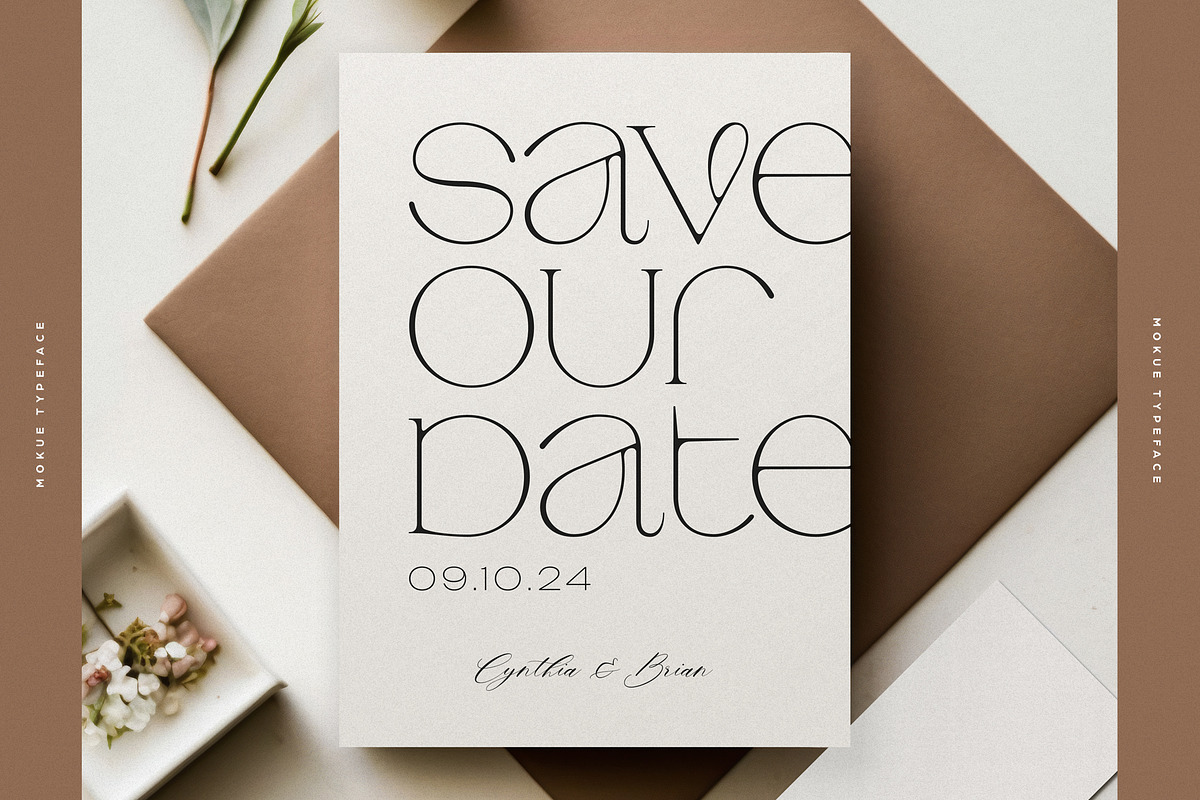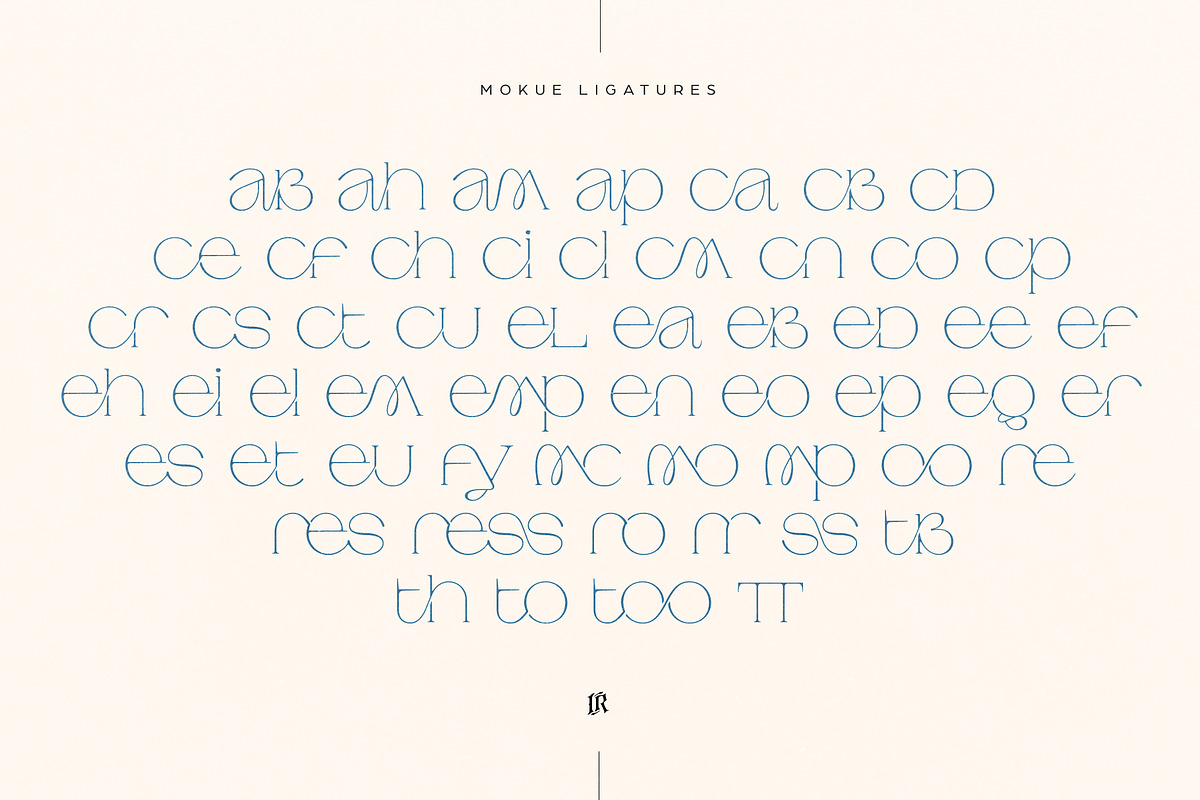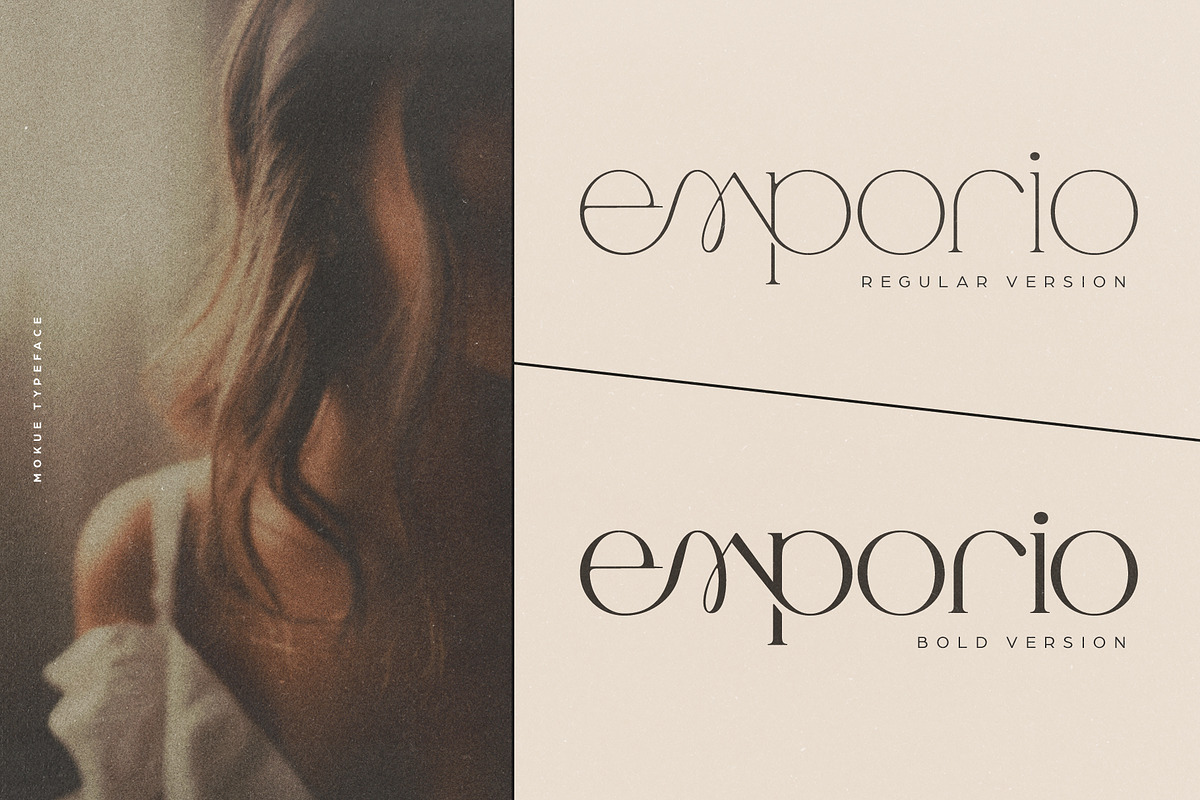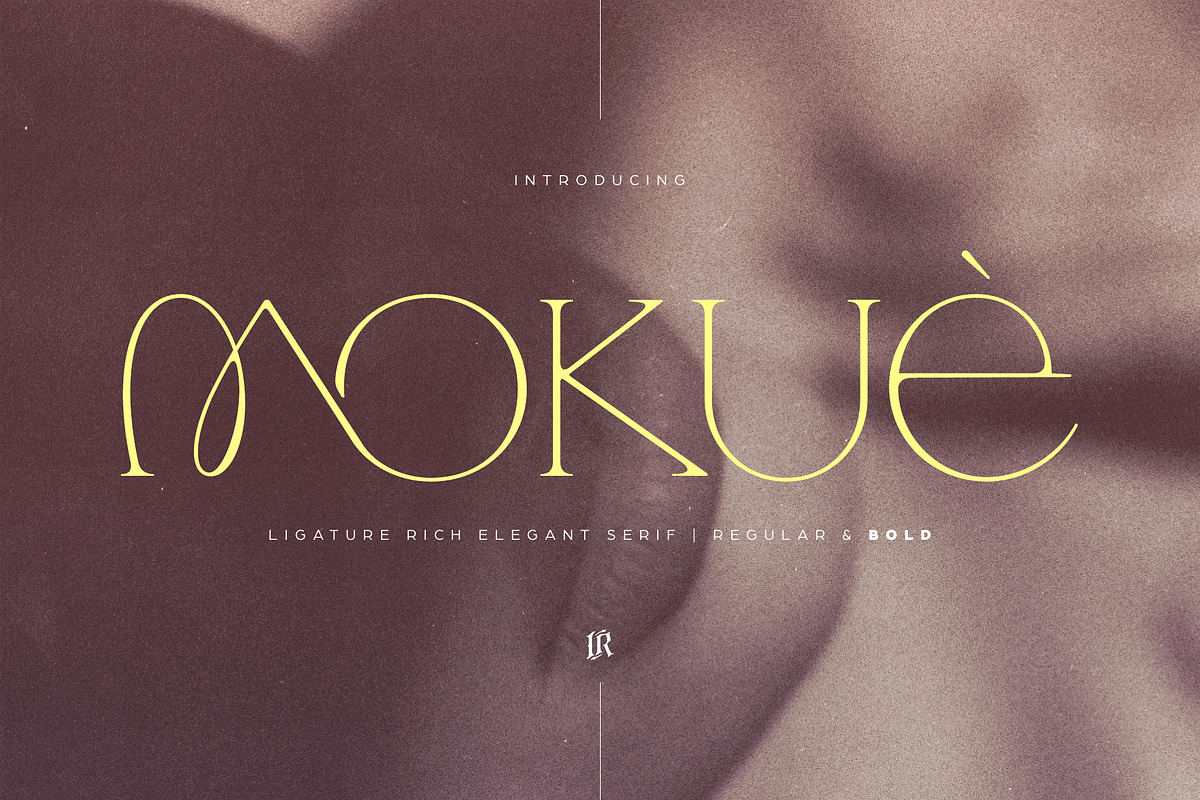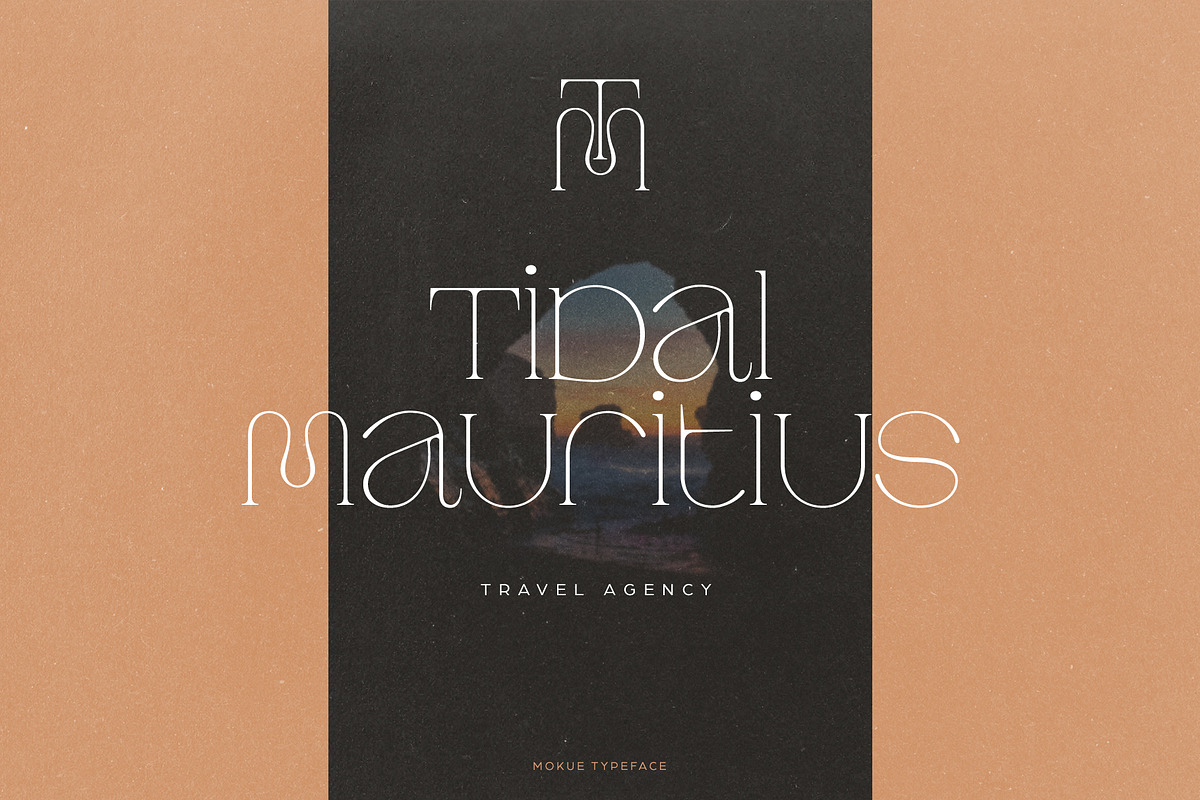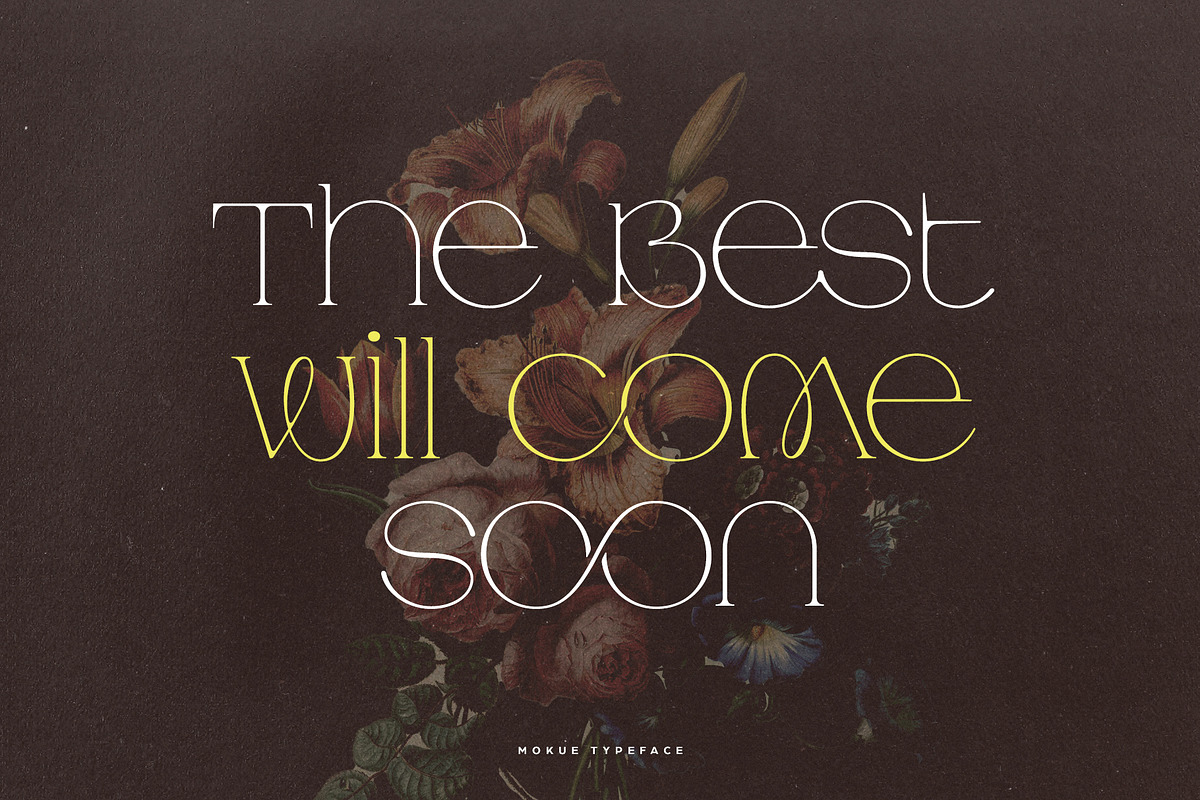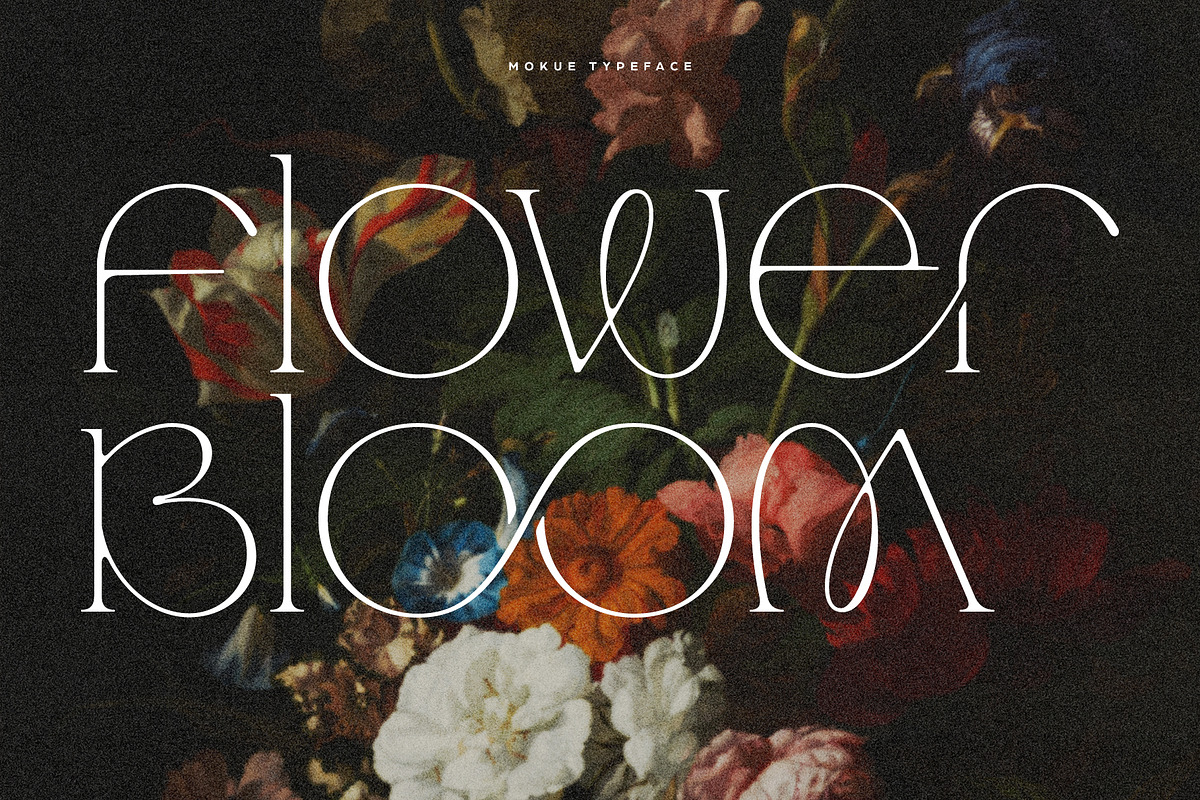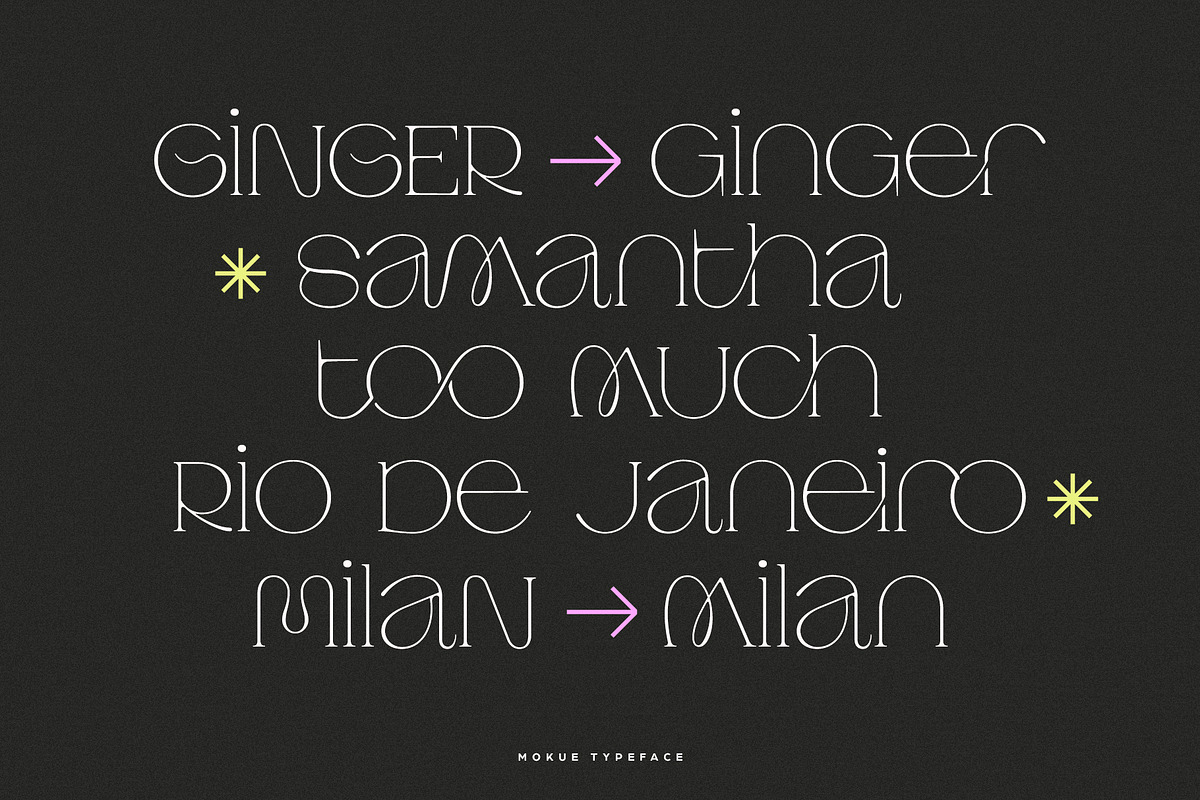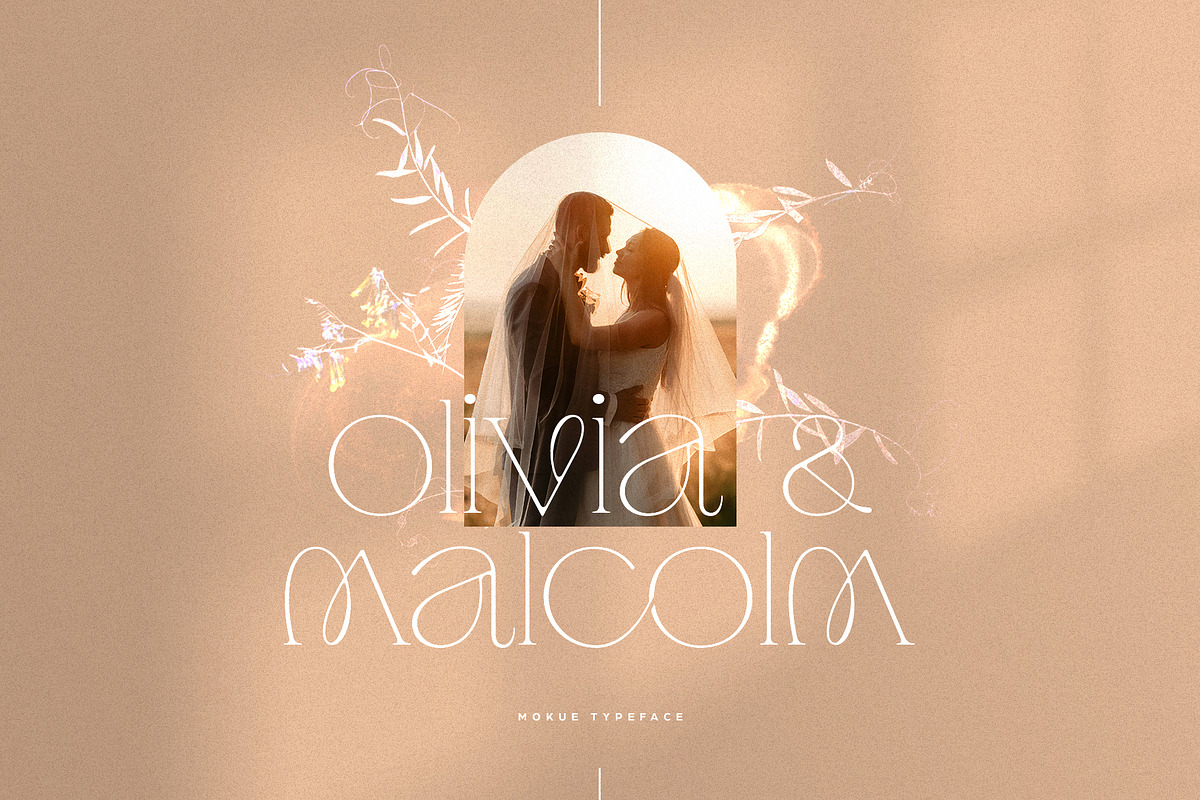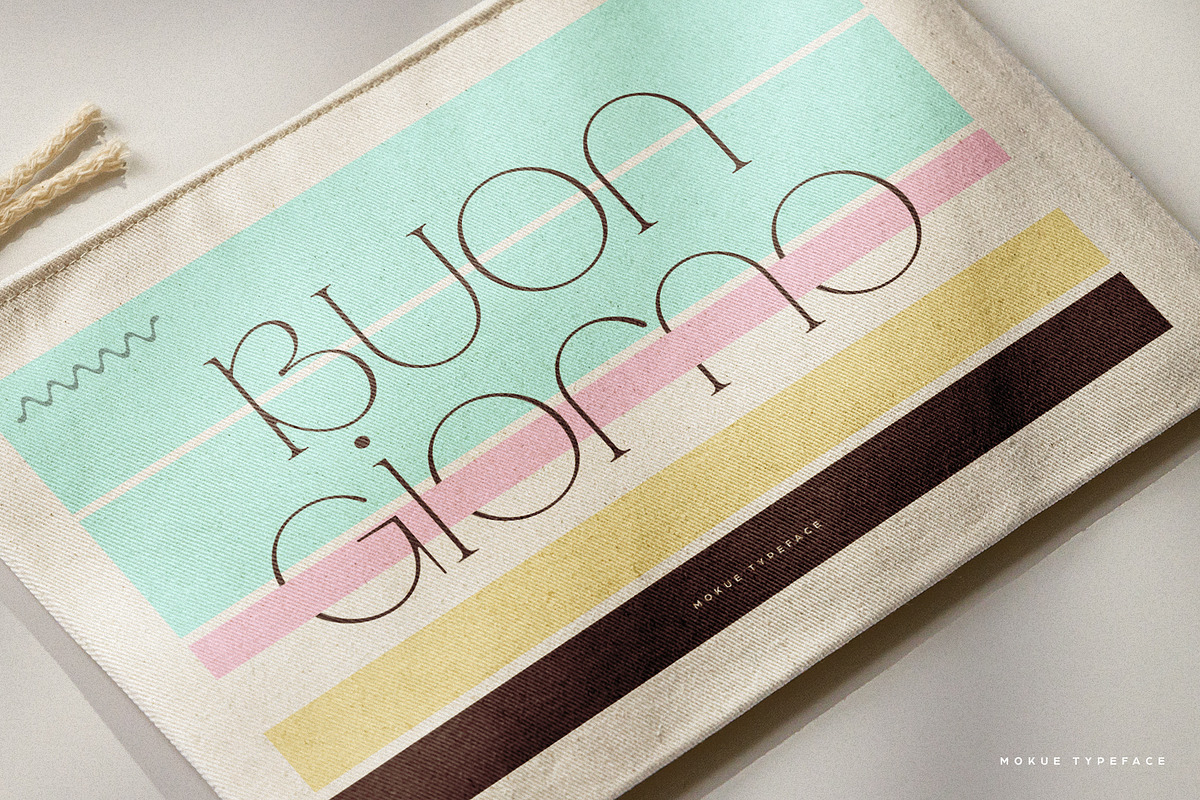
Mokue | Elegant Serif
Mokue Elegant Serif is a beautiful and elegant ligature-rich serif font. The inspiration came from the fashion magazines. It comes in regular and bold version.
This typeface includes letters and access to your OpenType features, alternate glyphs and more than 55 ligatures.
Mokue Elegant Serif is a serif typeface made mainly for headlines, titles, and other short texts and is well-suited for advertising, weddings, vintage mood board, branding, logotypes, packaging, titles, editorial design and modern and vintage design.